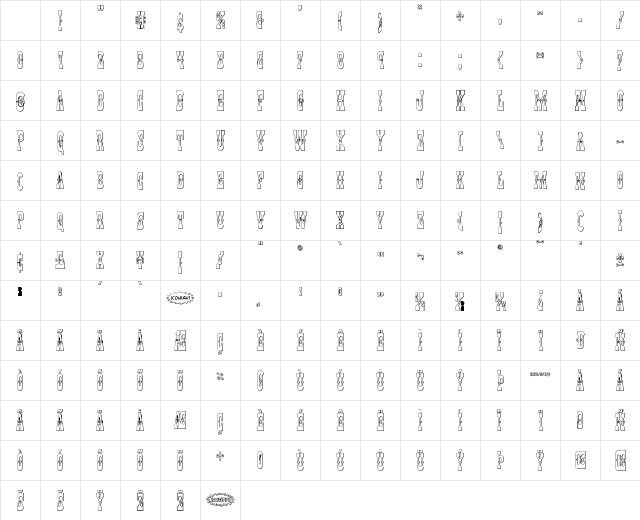
Younger Brothers 3D Regular Free Font
Younger Brothers 3D Regular
Younger Brothers 3D Family
Design Context for Younger Brothers 3D
Younger Brothers 3D is a composed and adaptable typeface that performs quietly and consistently across a wide range of design contexts.